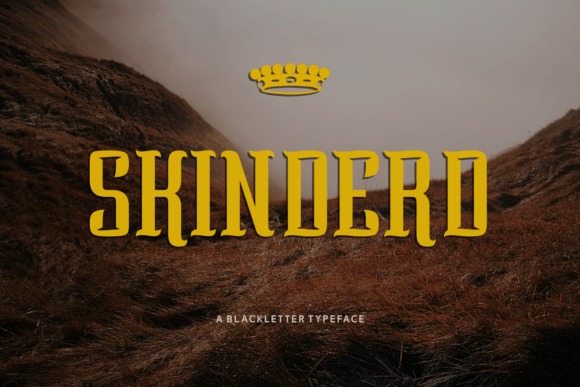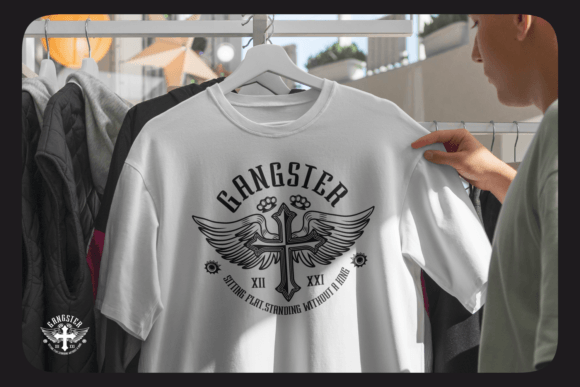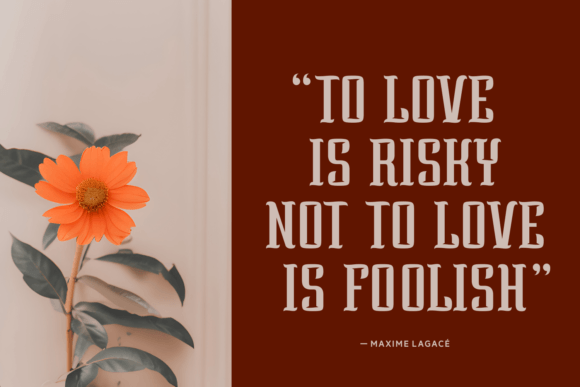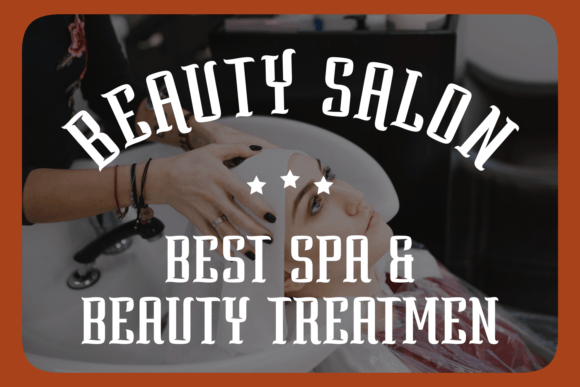
Skinderd Font: Bold Blackletter for Tattoos & Edgy Branding
About the Skinderd Font
The Skinderd Font offers a perfect balance of form and function for your design needs. Skinderd is a modern blackletter font. Perfect to use in branding for traditional, luxury, or alternative markets, editorial design (newspapers, books), event posters (concerts, festivals), religious and spiritual contexts, tattoos and streetwear, packaging for luxury or craft products, fantasy, medieval, and historical themes, diplomas, awards, and certificates.